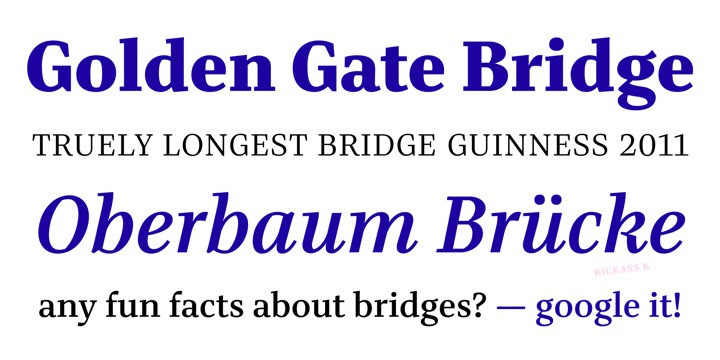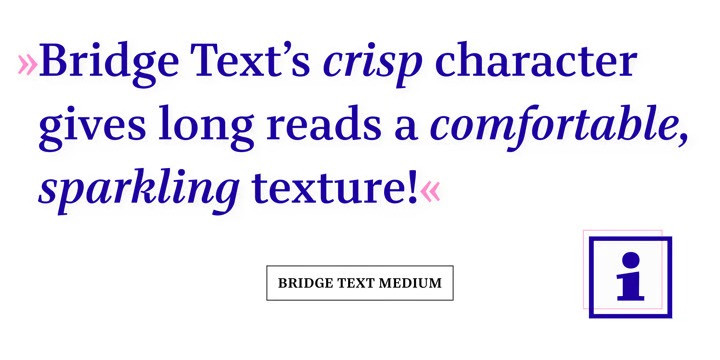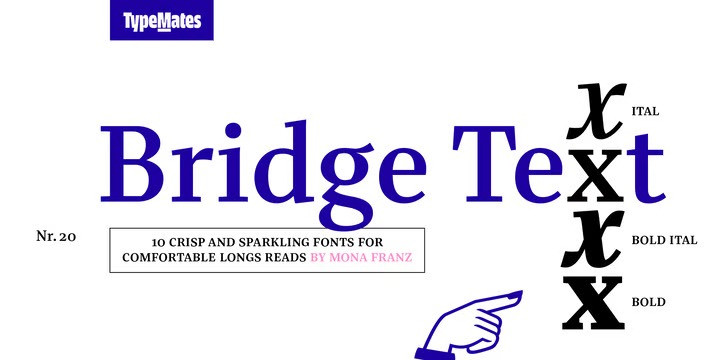
Bridge Text Font Family
Bridge Text Serif Font is a graceful and reliable serif, useful in any situation. With crisp character, sparkling texture and driving asymmetrical counters, Bridge Text refines Bridge Head’s graphic qualities for note perfect, highly readable text at smaller sizes. Slightly narrow proportions, moderate stroke contrast and an ample x-height ensure Bridge Text is clear and efficient. With five weights and matching italics for distinctively setting quotes or marginalia, Bridge Text has a range of ways to give longform text a modern voice. Each of her 10 styles can work together with Bridge Head to tell stories and build complex typographic ensembles in editorial and corporate design. Unlike other superfamilies, Bridge Head and Bridge Text are distinguished by more than optical adjustments. Letterforms and details are opened out or simplified for body text. Close up, the two-cornered counter shape that gives text a crisp character appears. Step back, and a smooth, calm texture for print publishing and digital media emerges. The daughter of classical Didone typefaces, Bridge has a vertical stress and a modern treatment.